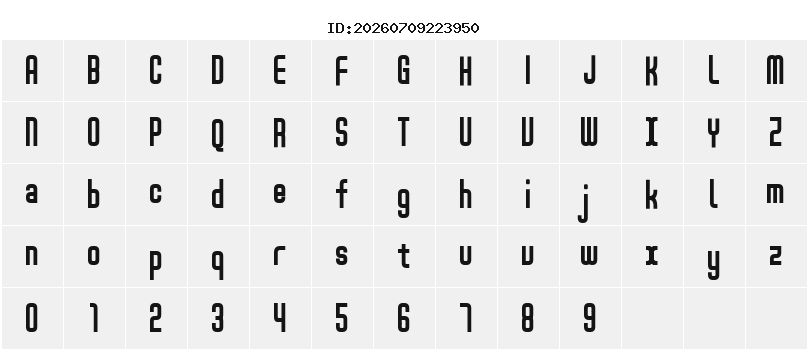
D3 Smartism TypeA Preview
• Font Name: D3 Smartism TypeA
About D3 Smartism TypeA.ttf
D3 Smartism TypeA.ttf is a modern, elegant sans-serif font designed for ultimate readability and visual harmony. Perfect for branding, headlines, web design, and print materials.